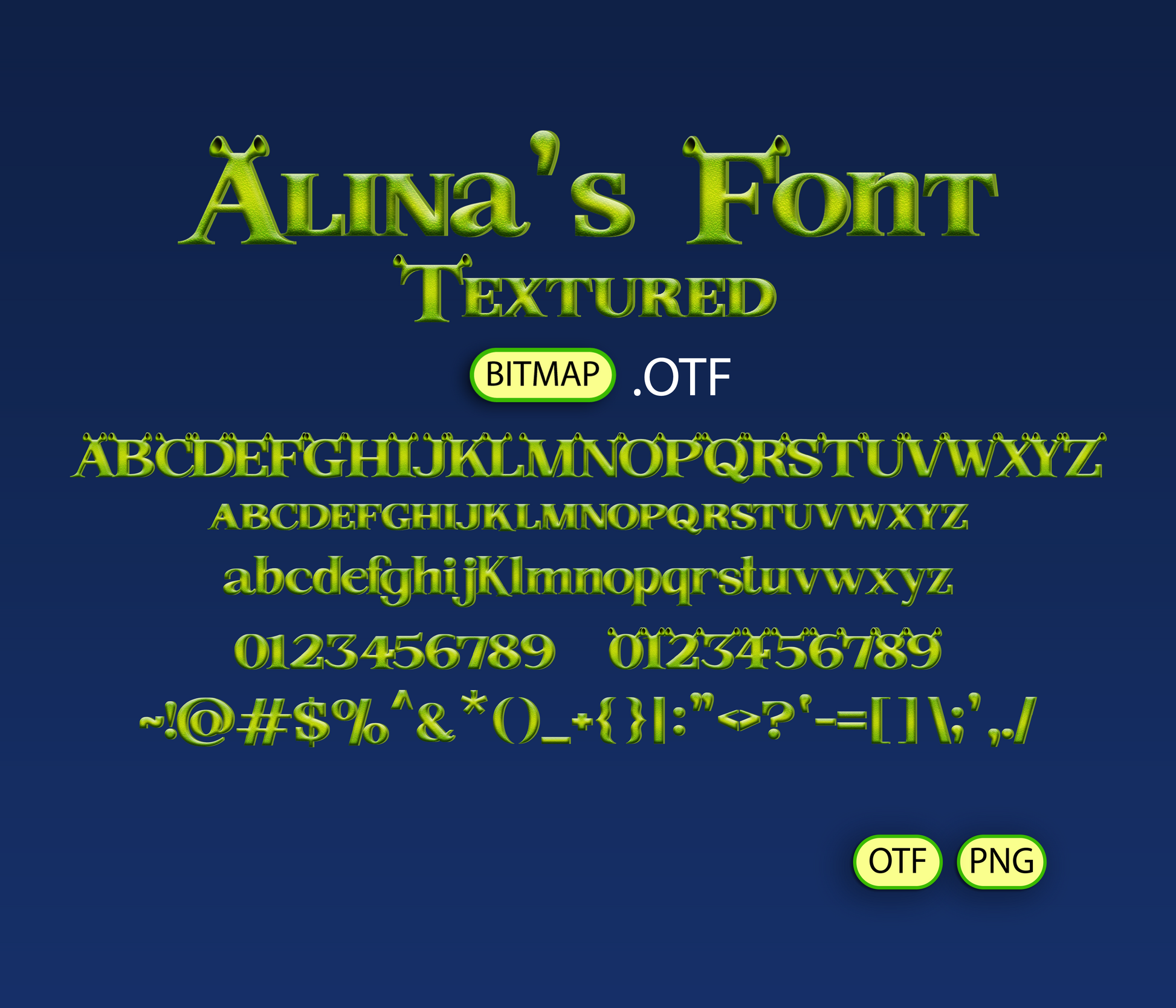
World of Ogre Tales Font Textured
The Whimsical World of Ogre Tales Font Textured
Step into the magical and humorous universe of Ogre Tales with our custom-designed font, inspired by the beloved animated film that captivated audiences with its unique characters, witty humor, and heartwarming story. This font embodies the essence of Shrek's world, where fairy tales are turned upside down and adventure awaits at every turn. Each character in the font echoes the rustic, bold, and playful nature of the movie, making it perfect for projects that aim to evoke the charm and distinctiveness of the Shrek franchise.
What Font is Ogre Tales Font?
Envision a typeface that encapsulates the fairytale yet unconventional world of the film. Our Ogre Tales font is designed to reflect the quirky and bold aesthetics of the movie, with a focus on strong, earthy, and whimsical letterforms. It includes an extensive character set, featuring alphabets, numbers, and special symbols, providing a comprehensive toolkit for creating designs that need a touch of Shrek's distinctive style and humor.
• Textured and FREE Non-Textured Variants: Each font is available in both a bold, fairytale-inspired style and a clean, non-textured version for different design needs.
• Comprehensive Character Set: Offers a wide range of characters for complete design versatility.
The Ogre Tales-inspired font is more than just a typeface; it's an invitation to the enchanting and humorous world of Shrek.